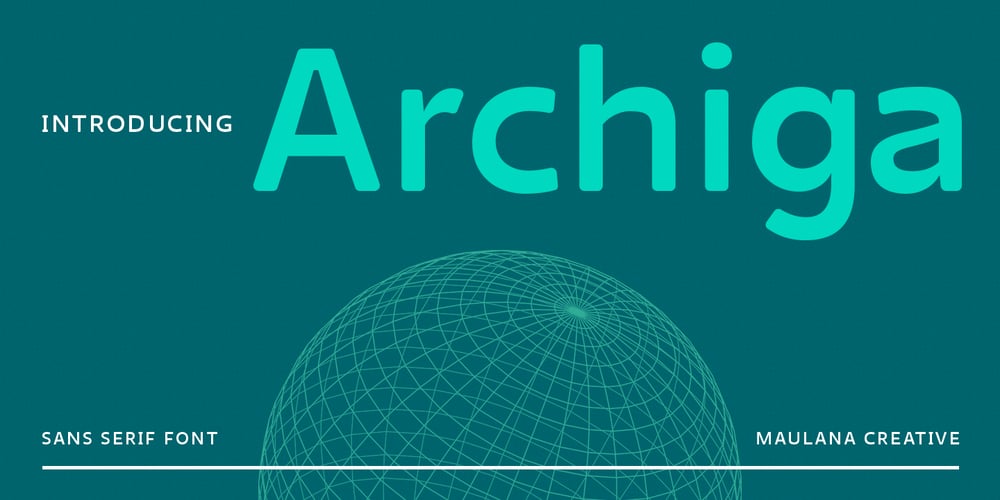
MC Archiga
MC Archiga font
MC Archiga Font Family was designed by Gilang Maulana and published by Maulana Creative. MC Archiga contains 1 styles and family package options. Archiga is a clean soft edges sans serif font. SemiBold stroke, fun character with a bit of ligatures and alternates. To give you an extra creative work. Archiga font support multilingual more than 100+ language. This font is good for logo design, Social media, Movie Titles, Books Titles, a short text even a long text letter and good for your secondary text font with script or serif. Make a stunning work with Archiga font. Cheers, Maulana Creative